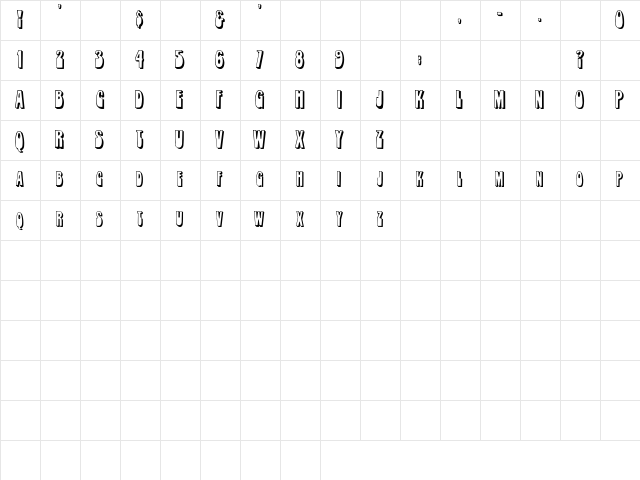
Buxton Regular
Complete Buxton Regular glyph index. Displaying only characters natively supported by Buxton Regular font.
Design Context for Buxton
Buxton is a composed and adaptable typeface that performs quietly and consistently across a wide range of design contexts.